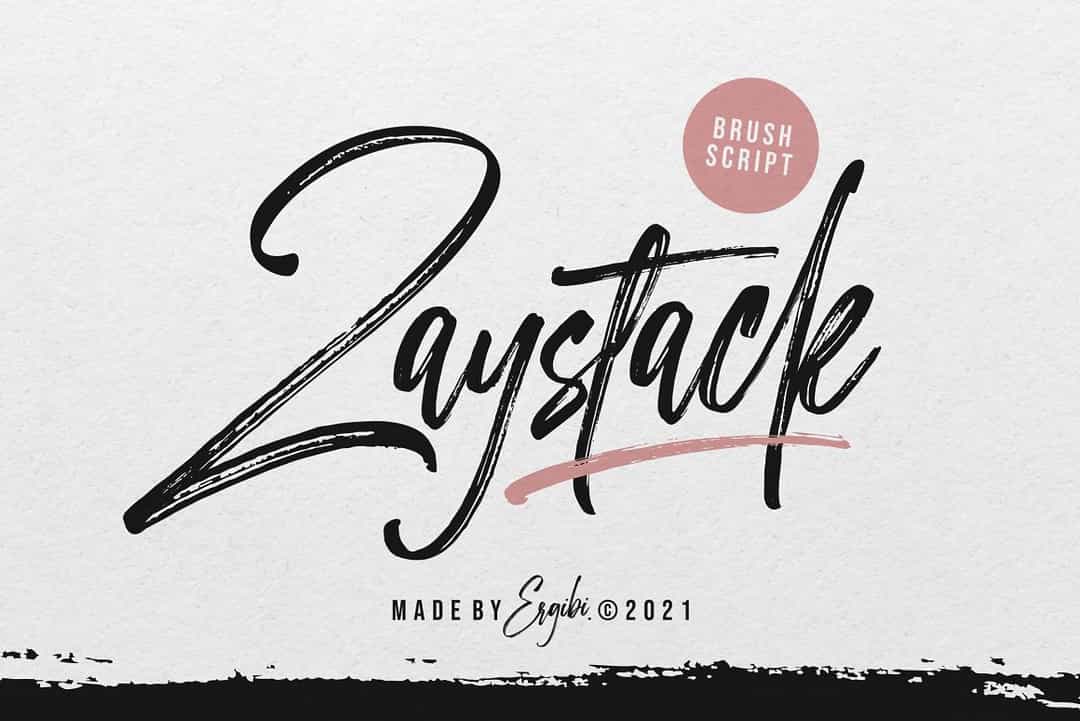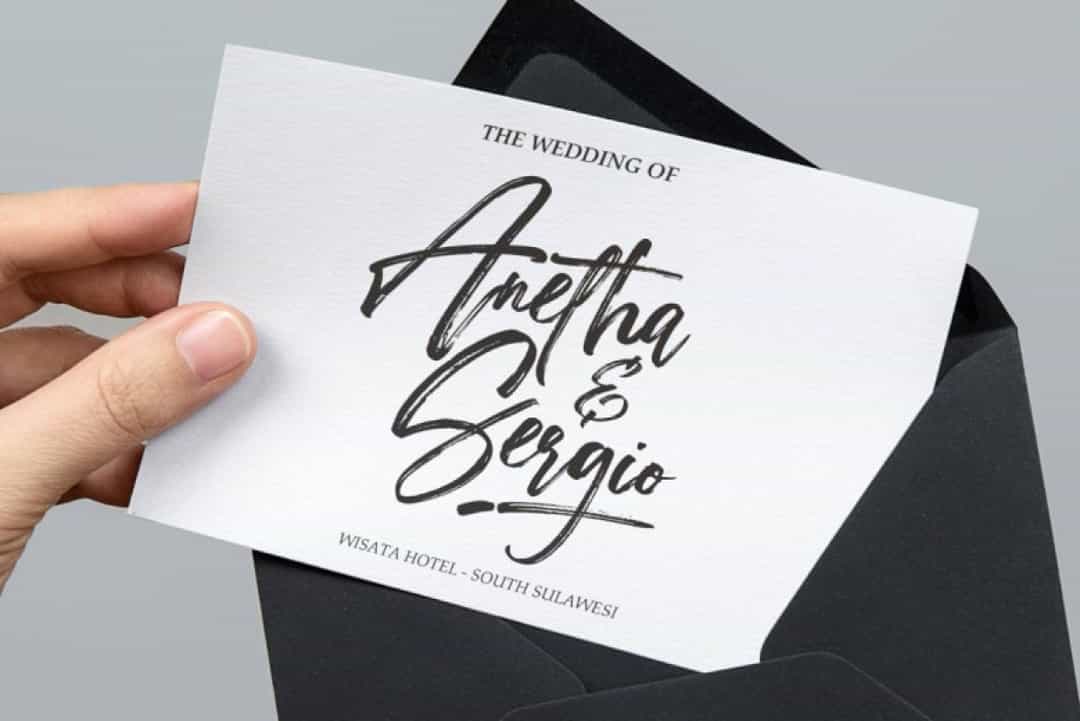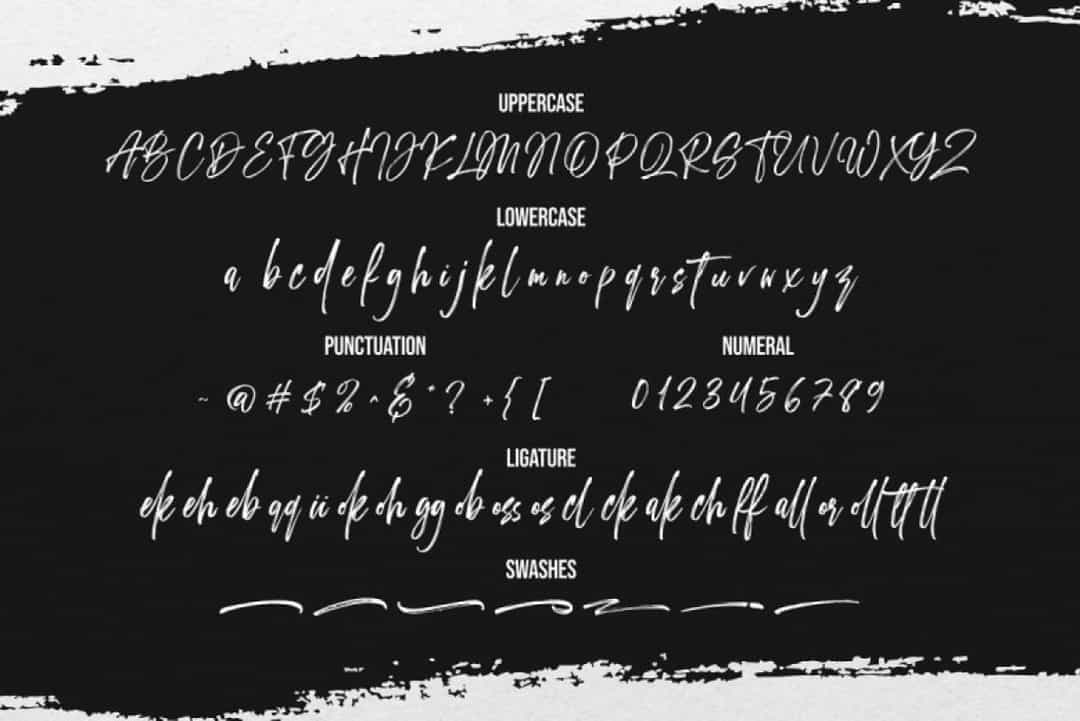
Zaystack Font is a brush-effect handwriting font with an organic appearance, inspired by luxury items and available for branding in different ways for use in various designs. Zaystack works great for logos and branding photographs, invitations watermarks, ads products wedding designs stationery labels special occasion packaging labels or any project requiring handwritten content.